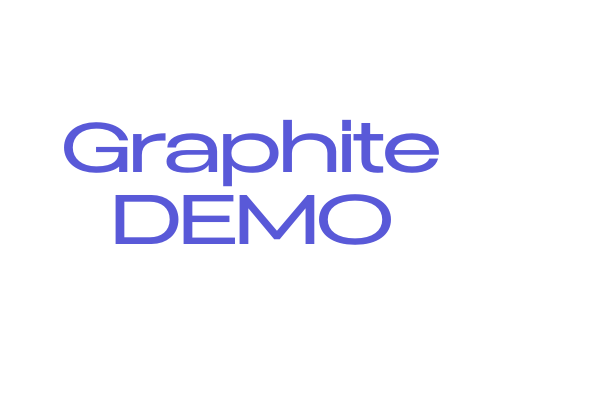
Graphite DEMO is a basic sans-serif font designed by Zohan Nur Muchlis. With a clean and modern style, this font is perfect for a variety of design projects. Its simplicity and readability make it ideal for logos, headlines, and body text.
Font Name: Graphite DEMO
Designer: Zohan Nur Muchlis
Font Family: Graphite DEMO